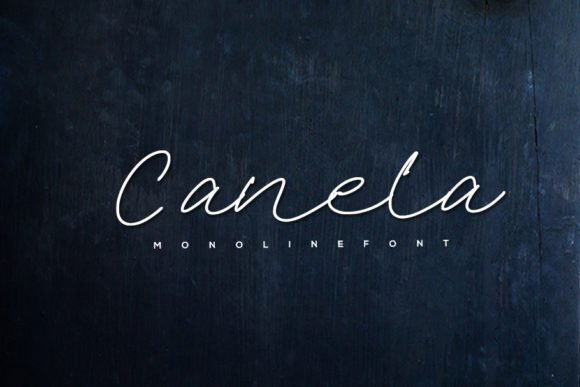
Introduction to Canela Font
Canela is a delicate, elegant and flowing handwritten font.
It has beautiful and well balanced characters and as a result, it matches a wide pool of designs Add it to your most creative ideas and notice how it makes them come alive.
Key Features of Canela Font
Why Choose Canela Font?
Canela Font offers exceptional quality and versatility, making it a valuable addition to your design toolkit. Whether you’re creating for personal projects or commercial use, Canela Font delivers professional results.